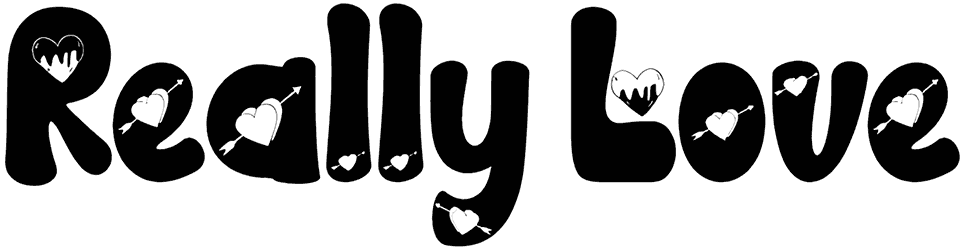
Really Love Font
Reveal your creative ideas with Really Love, a cute Valentine font that has a bold display and brings fun and happiness to your project. It is also decorated with an arrow through the hearts, making it too unique to attract everyone’s attention. You can use this love font for T-shirt printing, romantic events, décor designs, shopping bags, party invitations, and more.